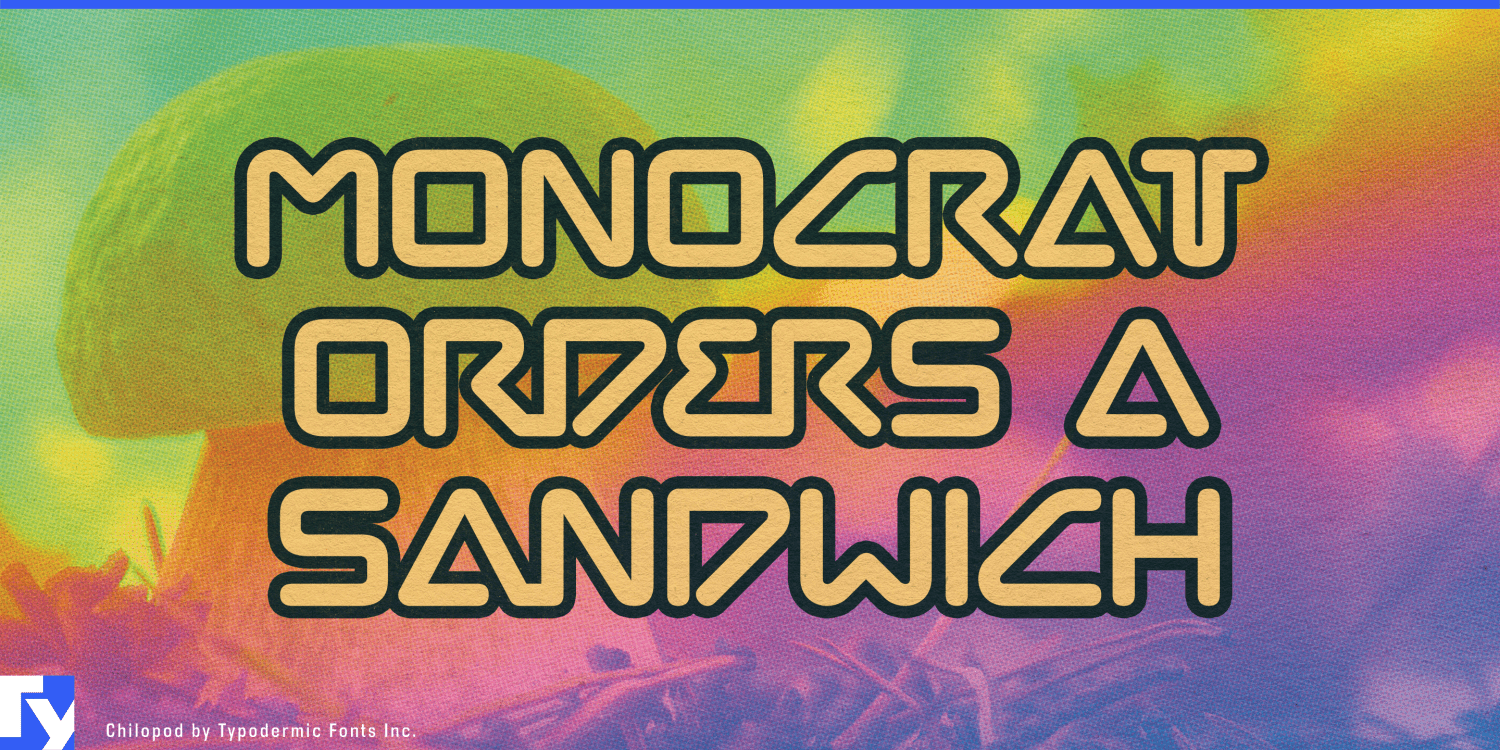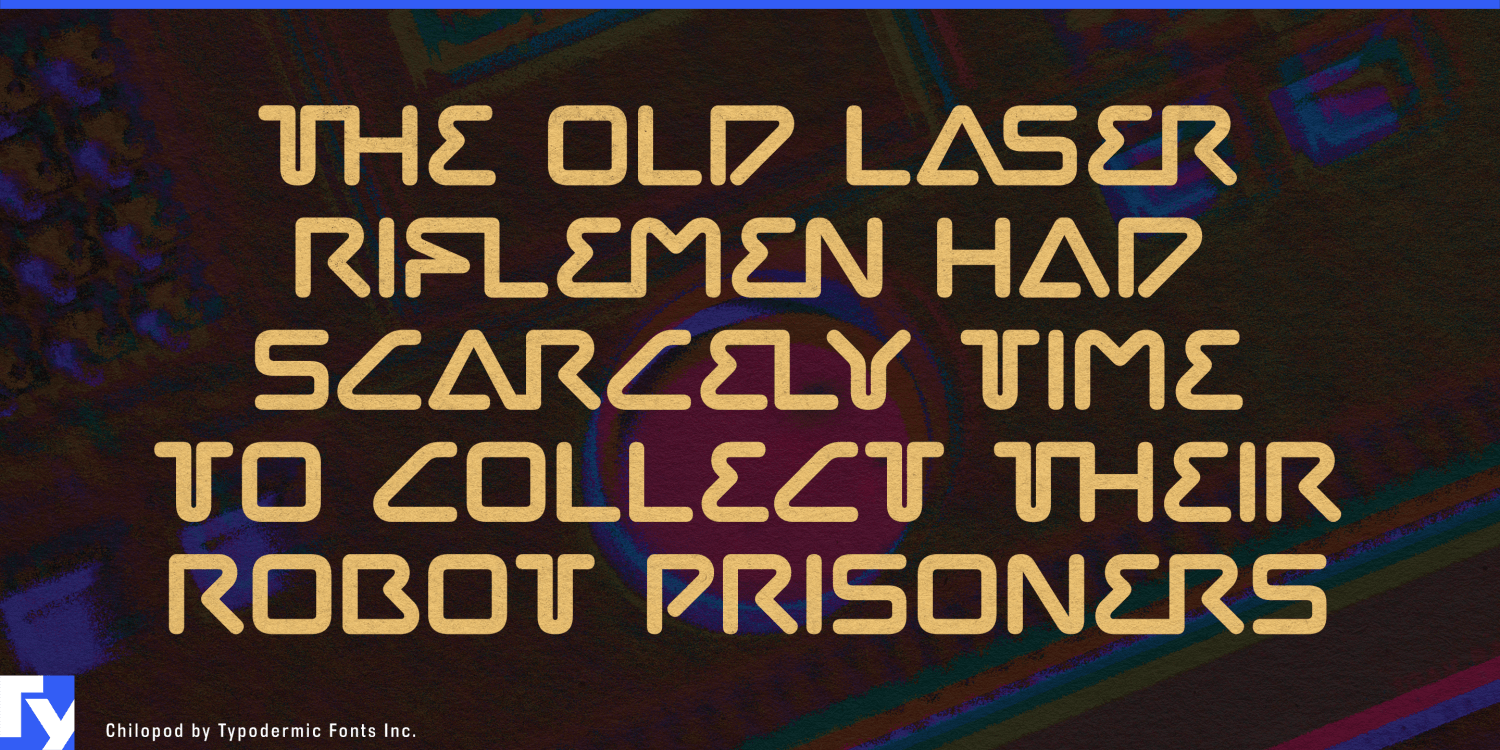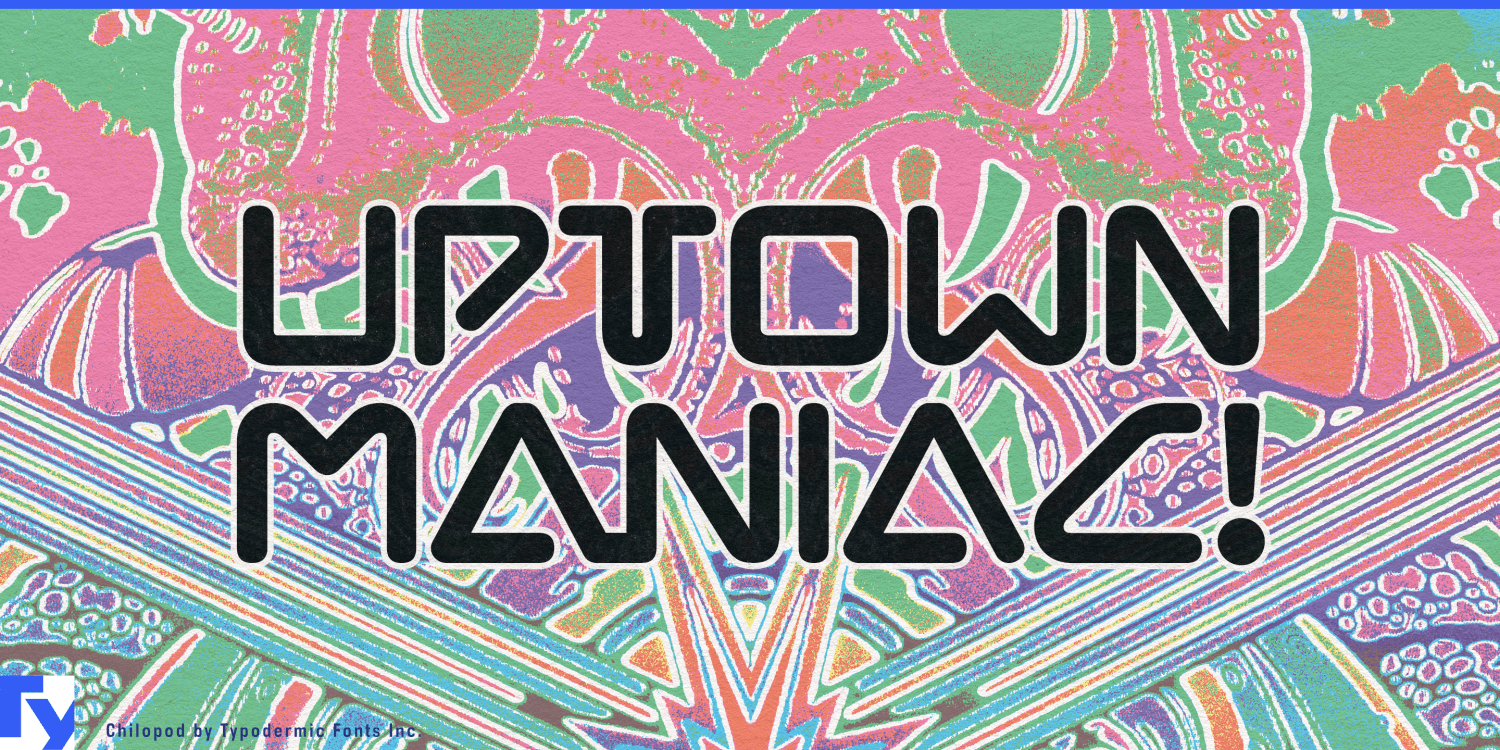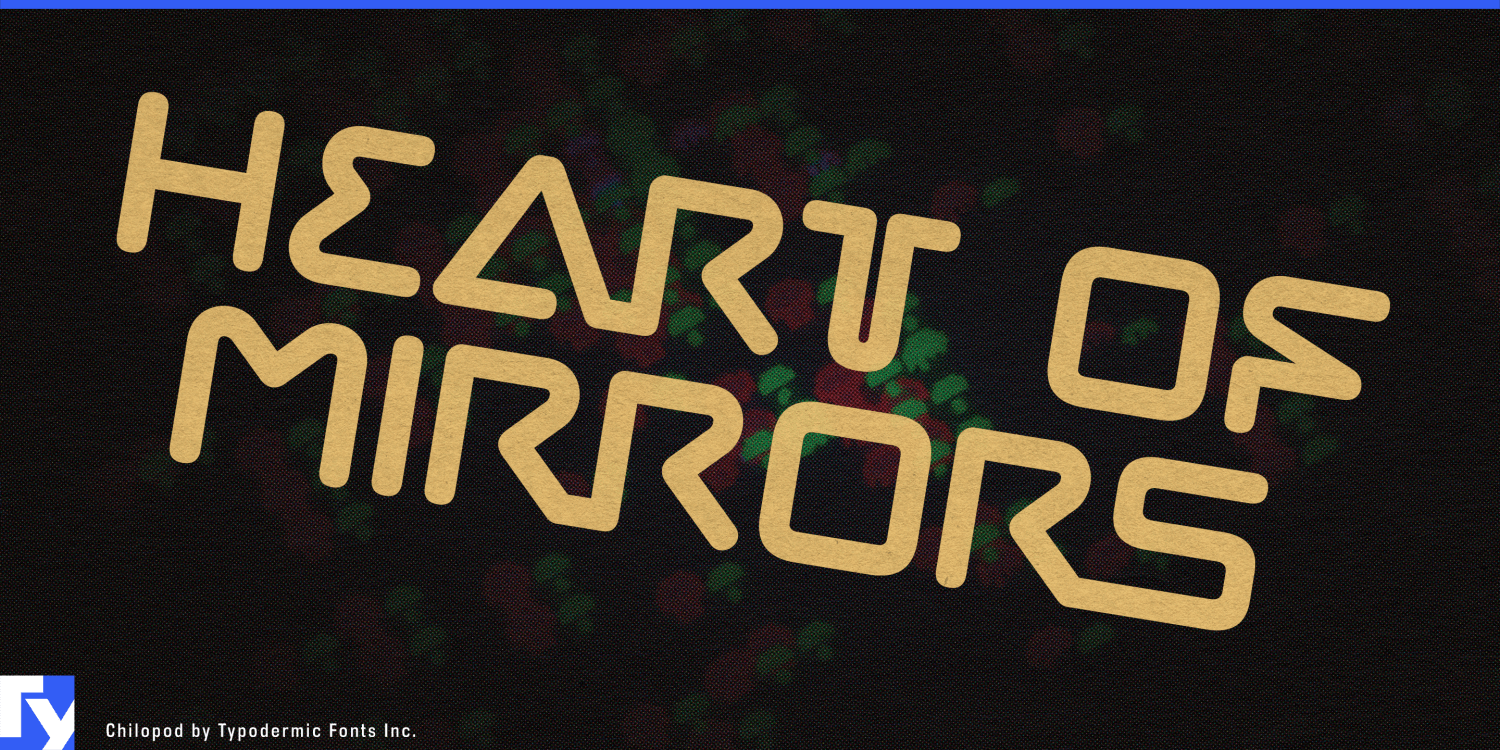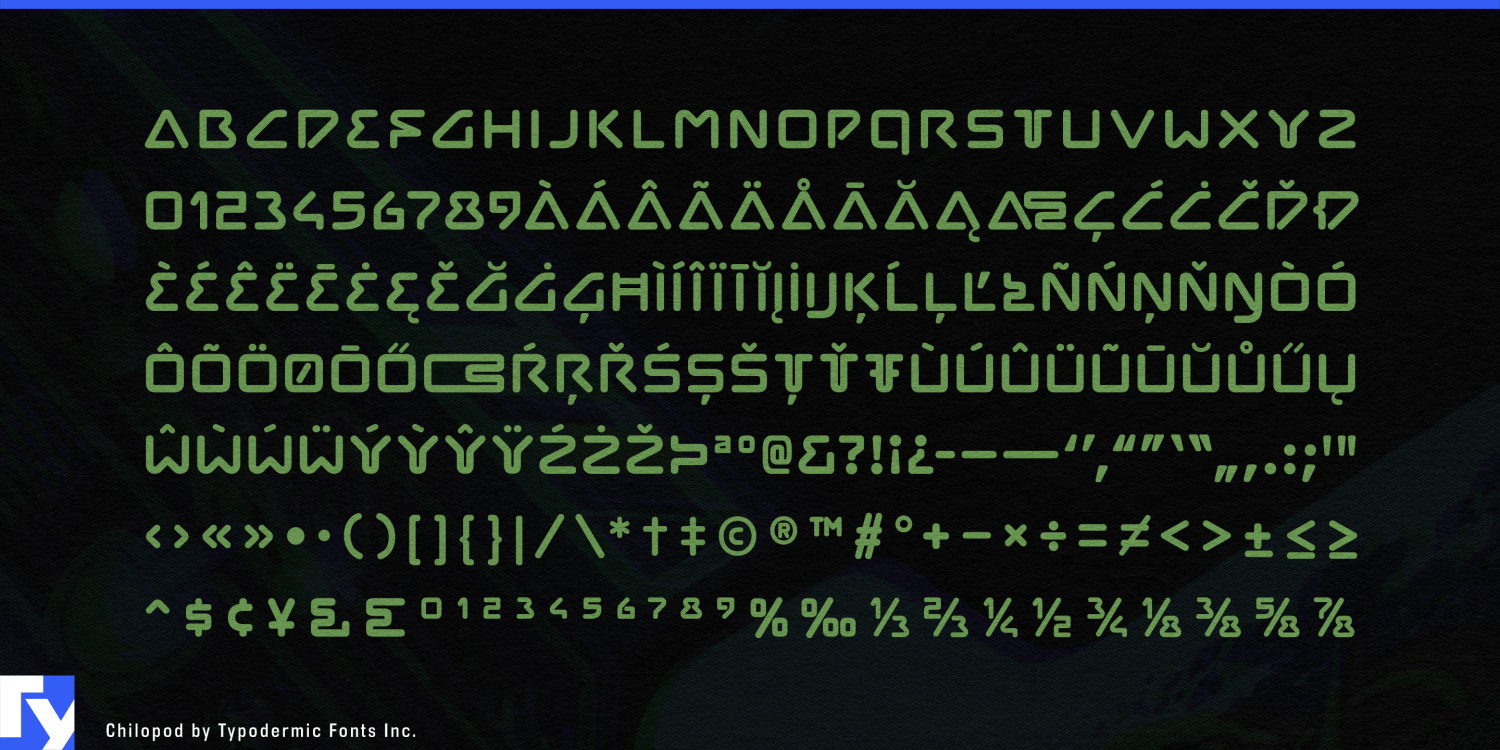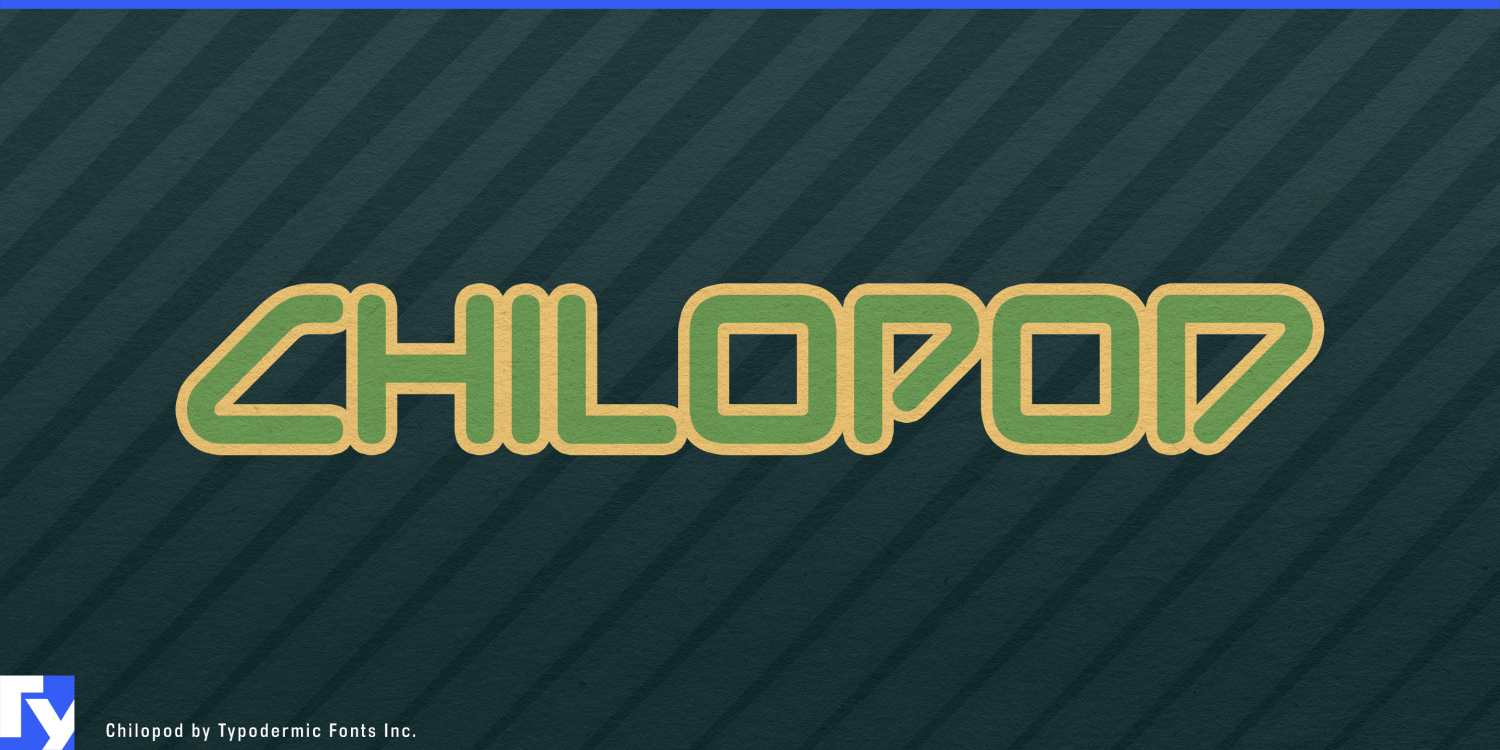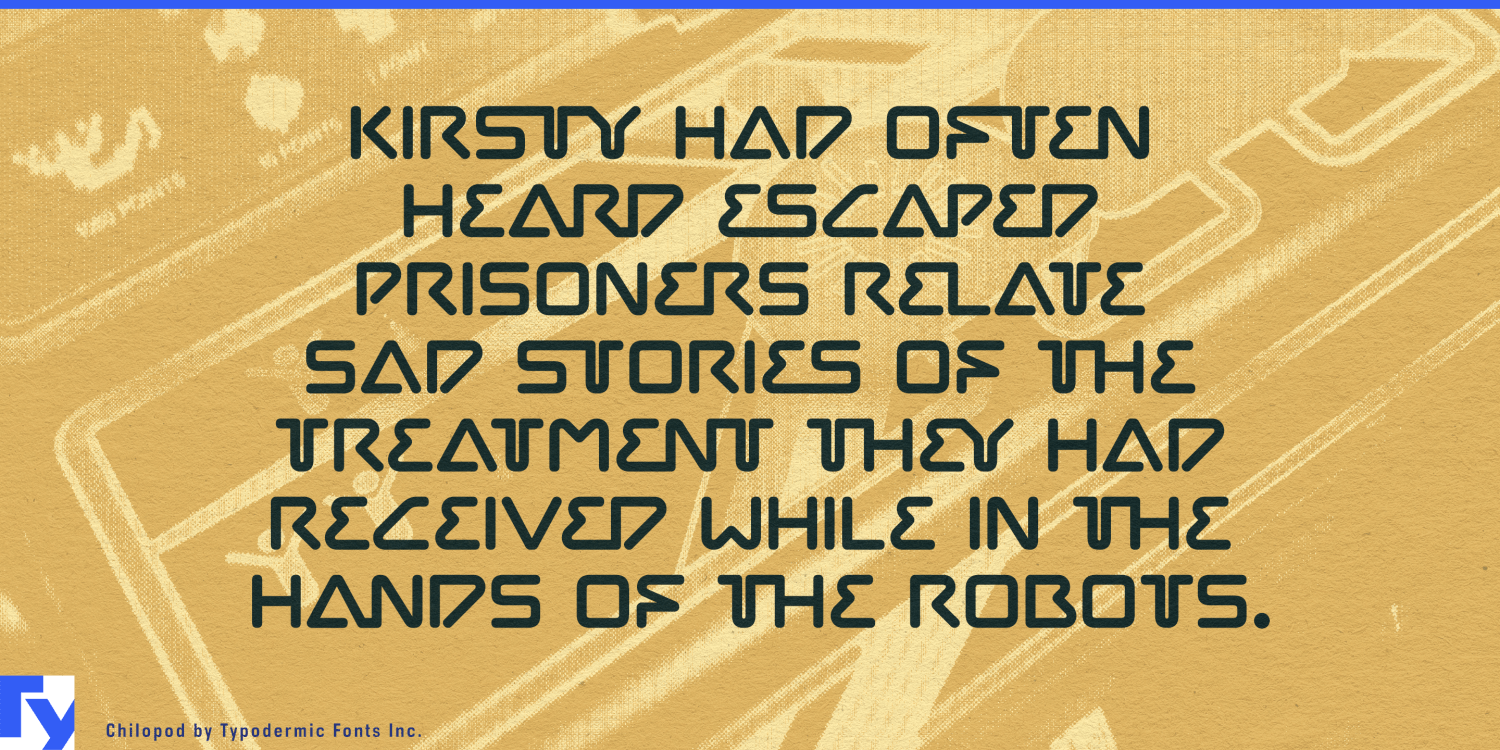
Chilopod
About Chilopod
Unleash the nostalgic power of pixelated dreams with Chilopod, a typeface that doesn’t just nod to the golden era of arcade gaming—it teleports you straight into the heart of it. Inspired by the legendary Centipede, this worm script font transforms…